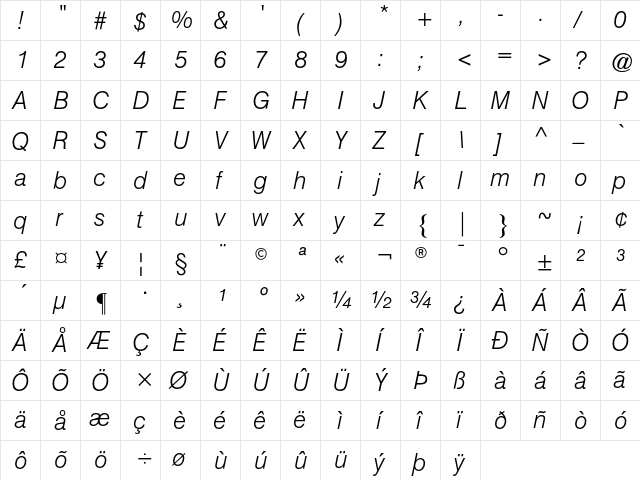
ATTriumvirate Regular Font Preview
ATTriumvirate Regular
ATTriumvirate Regular Font Details
Design Context for ATTriumvirate Typeface
ATTriumvirate is a composed and adaptable typeface that performs quietly and consistently across a wide range of design contexts.